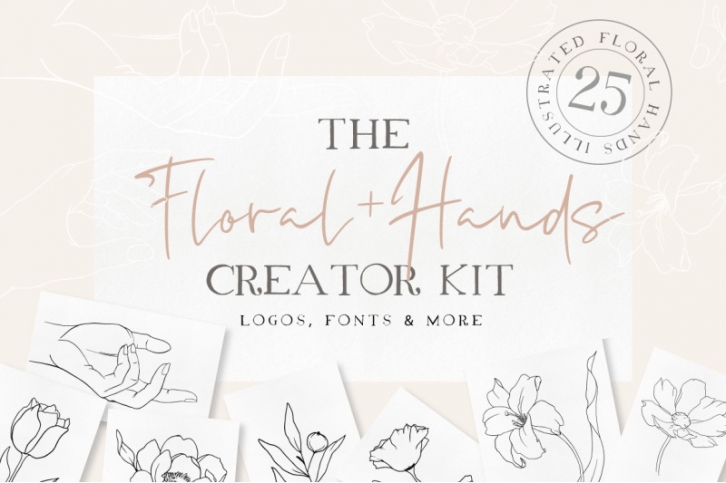
An elegant collection of fonts and illustrations - designed to work together in harmony, to produce a beautiful, sophisticated & feminine designs.
Also included 5 fonts such as Luscious Script, Quinn, Seraphina ( Regular&Bold ) and Marisole.
Your creativity doesn't stop here, over 20 logo templates are also included - layered , easy to edit Photoshop Files to get you started.
LANGUAGE SUPPORT :
Support for only the following languages is included : French, German, Norwegian Portuguese,Spanish,Swedish, Swiss German.